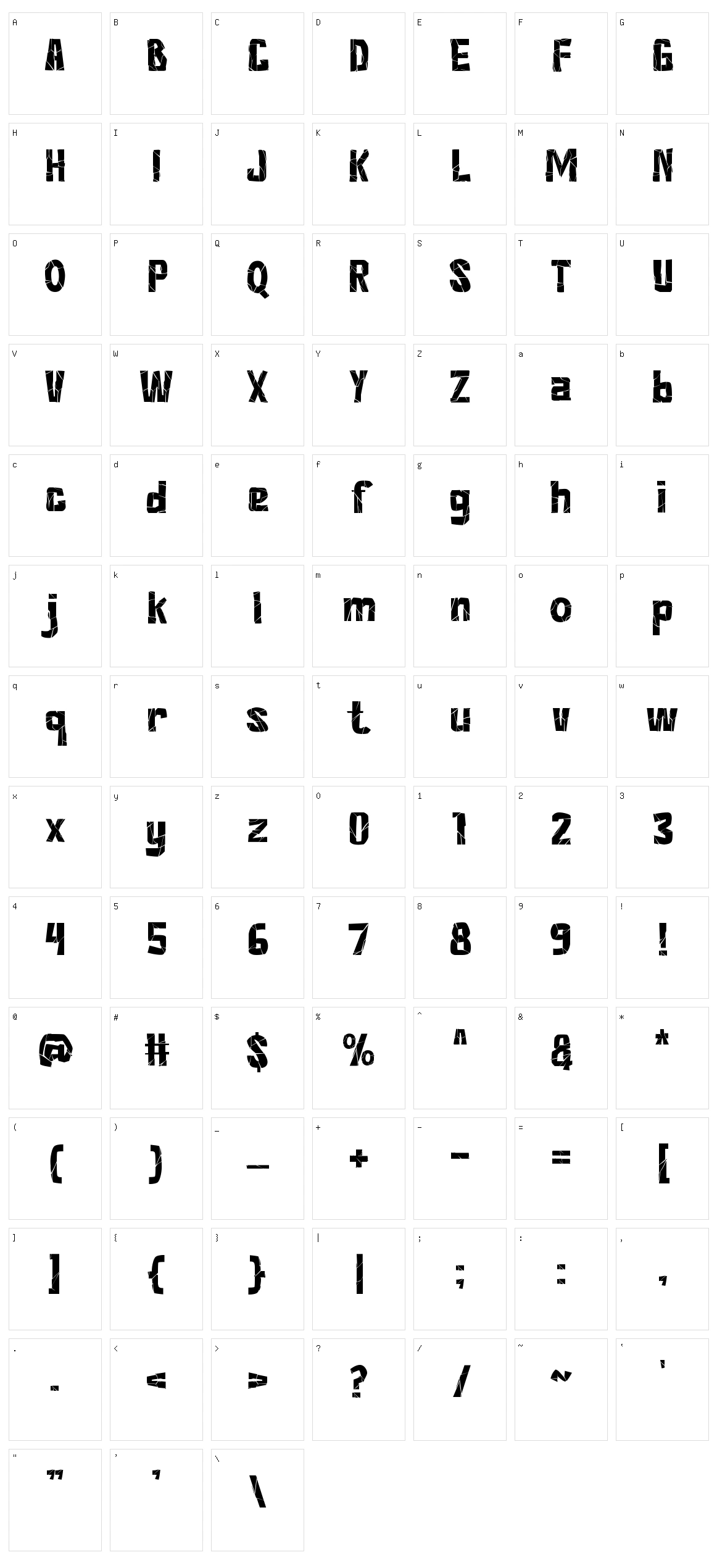
The free font Pile Of Rock is carefully designed by Pinisiart, showcasing a thoughtful balance of creativity and usability and falls under the Cartoon font style. When you download the ZIP file, it contains only 22.17 KB of font files, making it lightweight and quick to download. Please review the license details below to understand permitted usage and distribution rights. If license information is not available, we recommend using this font for personal projects only or contacting the author directly for commercial usage permissions.